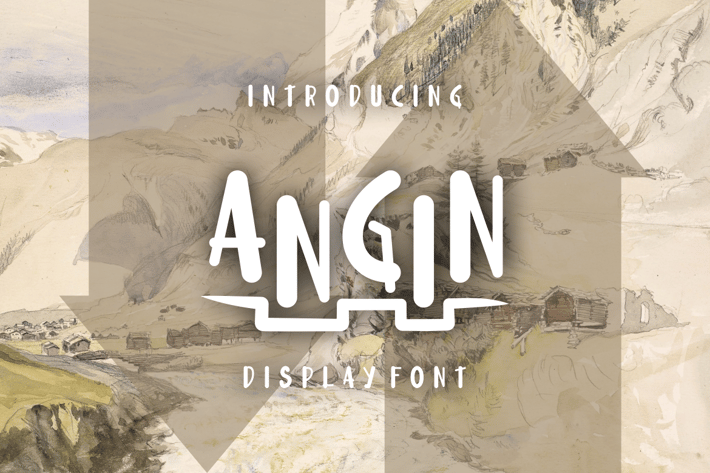
ANGIN FONT
Introducing our new product ANGIN FONT - Modern Font
ANGIN FONT - Modern Font is a bold and authentic display font. The font is suitable for any branding project like logo, t-shirt printing, esport, and many more. outstanding in a wide range of contexts.